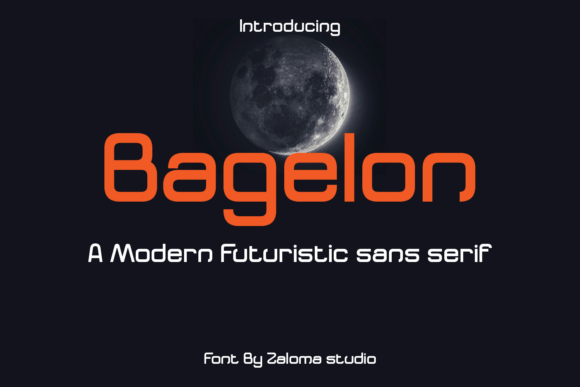
Bagelon Font: A Futuristic Sans-Serif Typeface for Modern Designs
In the realm of typography, fonts play a crucial role in shaping the visual identity of a brand, product, or artistic project. With the ever-evolving landscape of design, the demand for unique and futuristic typefaces has surged. This is where Bagelon comes into play β a sleek and modern sans-serif font that embodies the essence of futuristic aesthetics. In this article, we’ll dive deep into the world of Bagelon, exploring its features, applications, and the creative possibilities it offers.
Introduction to Bagelon
Bagelon is a futuristic sans-serif typeface designed to cater to the needs of high-tech branding, sci-fi projects, and digital interfaces. Its bold yet smooth letterforms make it an ideal choice for designers looking to infuse their work with a sense of innovation and forward-thinking. The font’s design is inspired by modern technology and science fiction, giving it a cutting-edge appeal that feels ahead of its time.
Key Features of Bagelon
- πΉ Futuristic Appeal β Inspired by modern technology and science fiction, Bagelonβs design feels ahead of its time.
- πΉ Geometric & Minimalist β Each character is crafted with a balanced structure, featuring smooth curves and rounded corners that enhance readability.
- πΉ Bold & Eye-Catching β The thick, uniform strokes ensure high visibility, making it ideal for headlines, posters, and UI/UX design.
- πΉ Versatile Usage β Perfect for gaming logos, space-themed visuals, cyberpunk artwork, and technology-based branding.
Perfect for Projects Like:
- Sci-fi book covers
- Tech startup branding
- UI/UX design
- Movie posters (Cyberpunk, AI, Futuristic themes)
- Digital advertisements
The Design Philosophy Behind Bagelon
Bagelon’s design philosophy revolves around the fusion of technology and art. The creators aimed to develop a font that not only looks futuristic but also ensures readability and versatility. The result is a typeface that is both aesthetically pleasing and highly functional.
The geometric and minimalist approach to Bagelon’s design makes it stand out. Each character is carefully crafted with smooth curves and rounded corners, enhancing its readability across various mediums. Whether it’s used for digital interfaces or print materials, Bagelon maintains its clarity and impact.
Applications of Bagelon
Bagelon’s versatility makes it suitable for a wide range of applications. Here are some of the areas where Bagelon can make a significant impact:
- Sci-fi Book Covers: Create captivating book covers that transport readers to another world with Bagelon’s futuristic appeal.
- Tech Startup Branding: Establish a strong brand identity with a font that screams innovation and modernity.
- UI/UX Design: Enhance user interfaces with a clean and readable font that doesn’t compromise on style.
- Movie Posters: Whether it’s a cyberpunk movie or a futuristic sci-fi film, Bagelon can help create posters that grab attention.
- Digital Advertisements: Stand out in the crowded digital space with bold and eye-catching advertisements powered by Bagelon.
Why Choose Bagelon?
In a world where first impressions matter, having a unique and impactful font can make all the difference. Here are some reasons why Bagelon should be your go-to choice for futuristic designs:
- Unique Aesthetic: Bagelon offers a fresh take on sans-serif fonts, giving your designs a distinctive look.
- High Readability: Despite its bold appearance, Bagelon ensures that your message is conveyed clearly and effectively.
- Versatility: From digital platforms to print materials, Bagelon adapts seamlessly across different mediums.
- Futuristic Appeal: Instantly elevate your designs with a font that feels inherently futuristic and cutting-edge.
Bagelon is more than just a font β it’s a design statement. With its futuristic appeal, geometric structure, and bold yet smooth letterforms, Bagelon is poised to revolutionize the way we approach modern design. Whether you’re a designer, a brand manager, or an artist, Bagelon offers a world of creative possibilities. Embrace the future of typography with Bagelon and bring innovation to your designs.
- How does Bagelon enhance readability? Bagelon’s geometric and minimalist design, along with its smooth curves and rounded corners, enhance readability across various mediums.
- What are some alternatives to Bagelon? There are several futuristic sans-serif fonts available, but Bagelon’s unique aesthetic and features make it a standout choice.